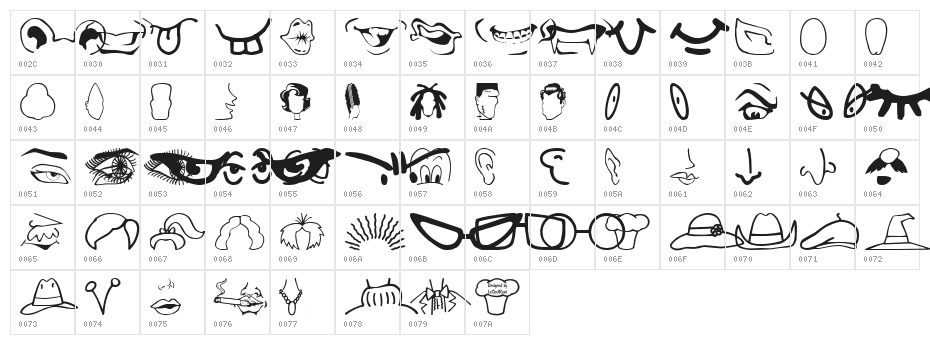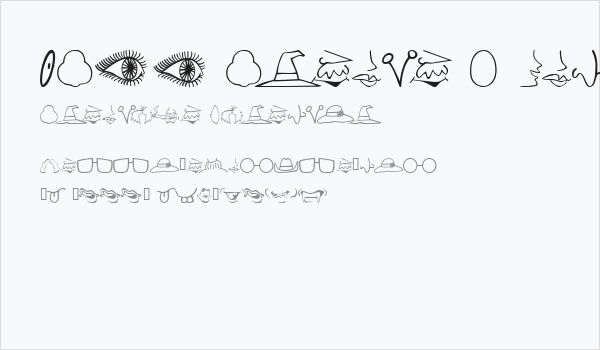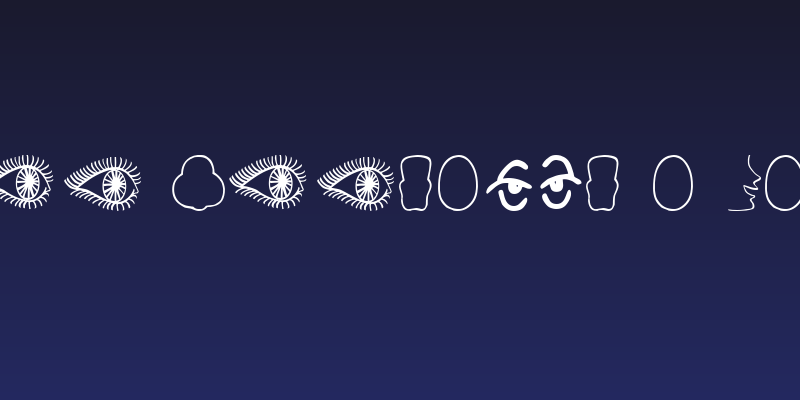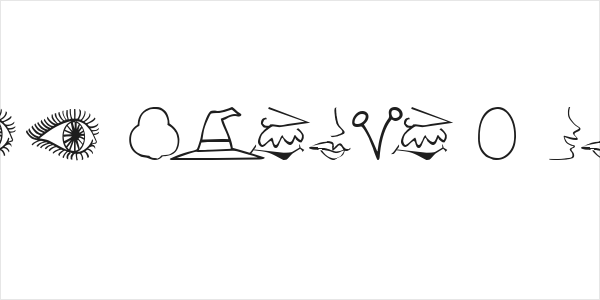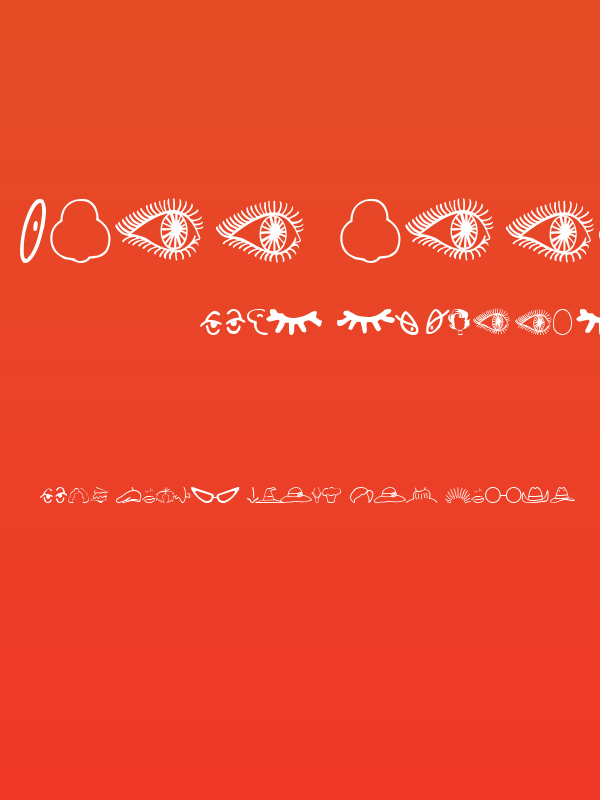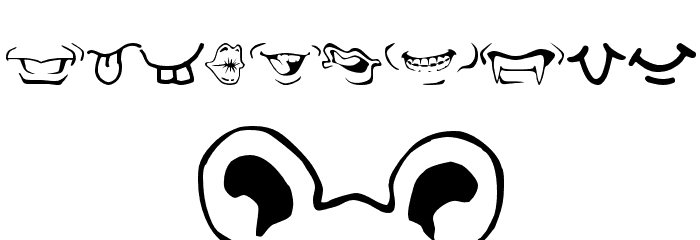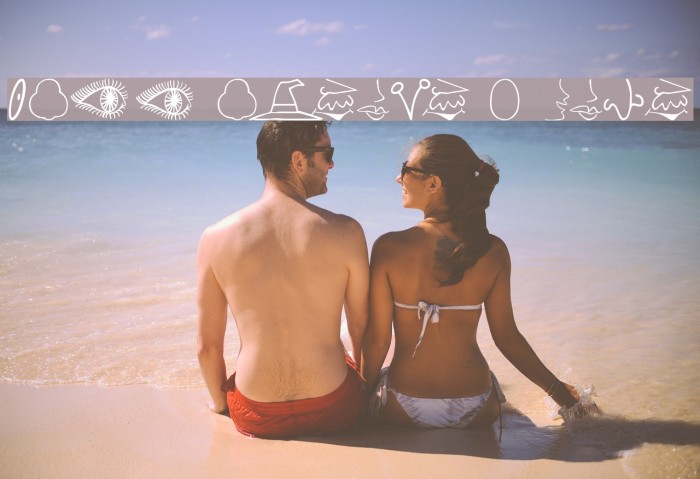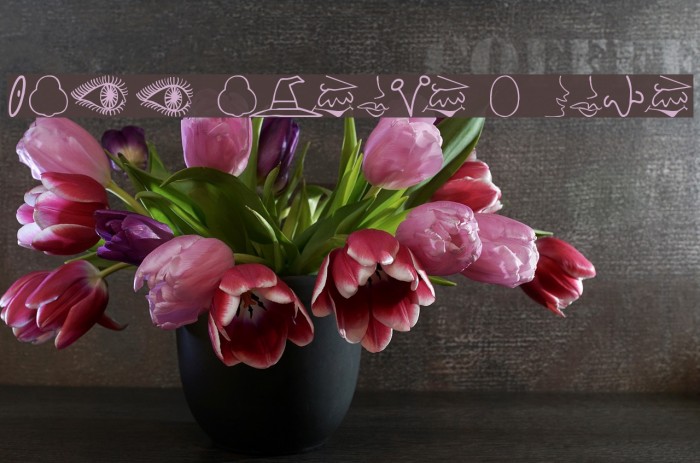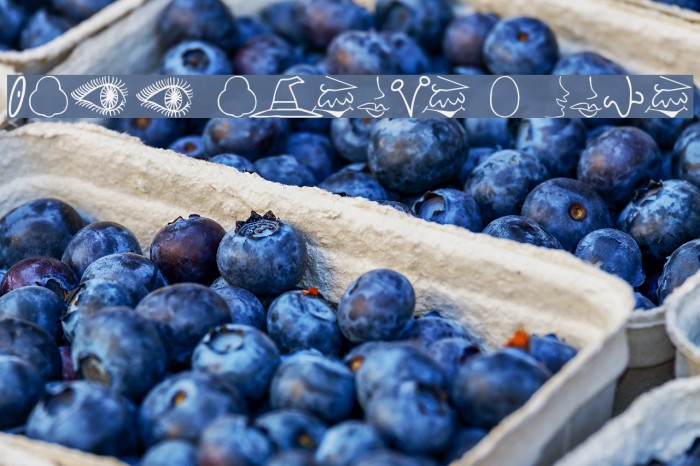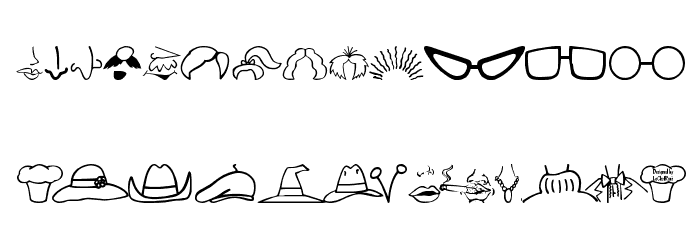
LCR Create A Face Font
LCR Create A Face Description
A playful and illustrative collection of modular face parts, including heads, eyes, noses, glasses, hats, mouths, and ears, designed as individual glyphs for creative face-building. The style is cartoonish and hand-drawn, with varying line weights and exaggerated features, making each character element distinct and expressive.
| Overall Style | Decorative, Playful, Cartoonish |
| Use Case | Logos, Posters, Educational Materials, Children’s Books, Games |
| Proposed Projects | Children’s activity books, educational materials, playful branding, party invitations, character design kits, and interactive web or print projects. |